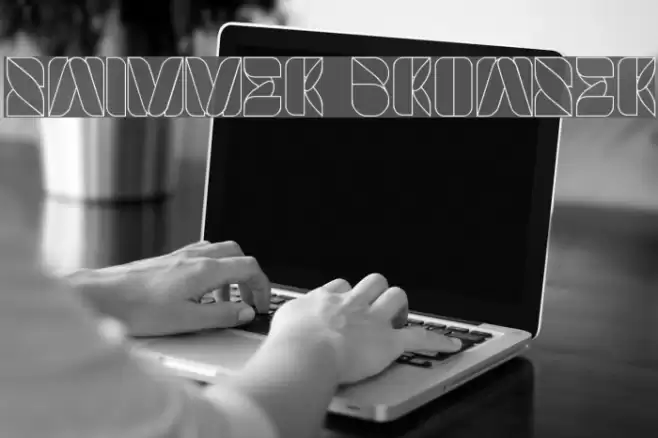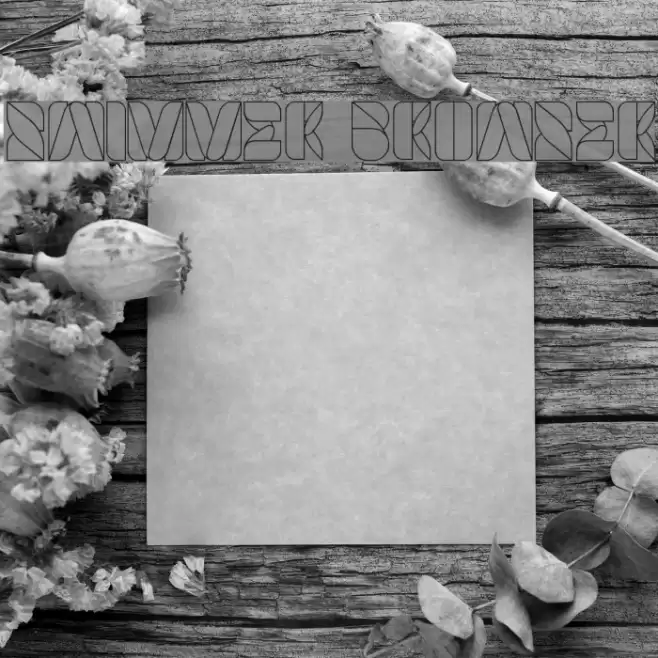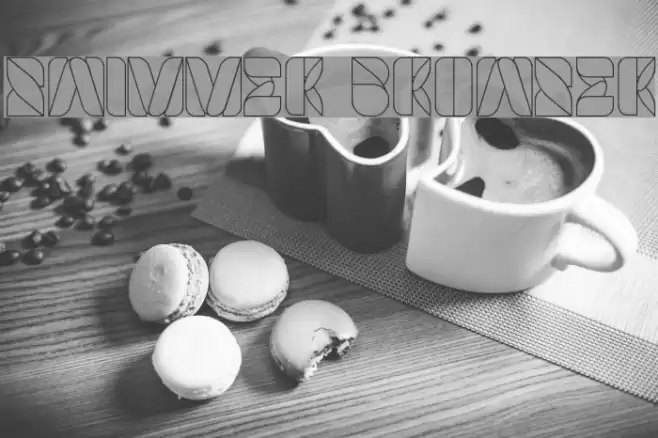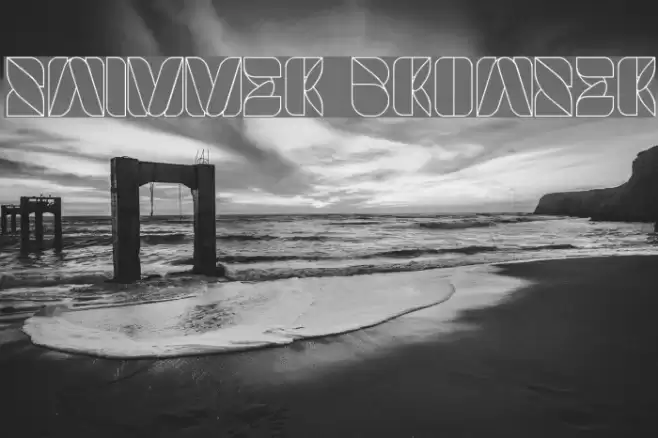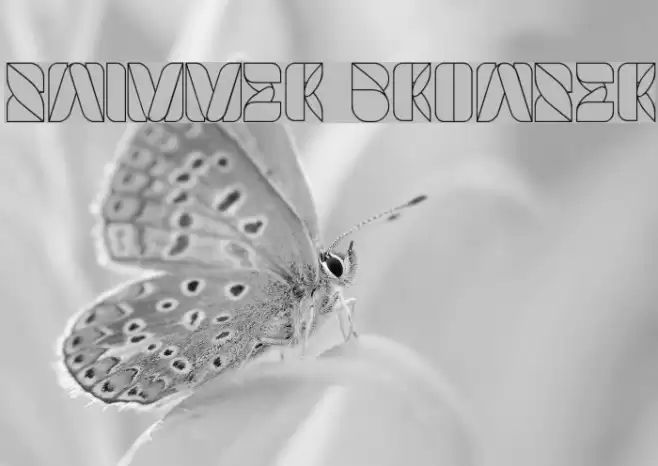
SWIMMER BROWSER Font
SWIMMER BROWSER Description
This font features a unique and modern design with a geometric and abstract style. The characters are composed of bold, angular shapes that create a sense of movement and energy. The uppercase letters are particularly striking, with their intricate patterns and bold lines. The font's design is reminiscent of modern art, with a focus on form and structure. It is highly decorative, making it suitable for eye-catching designs. The contrast between the thick and thin lines adds depth and dimension, enhancing its visual appeal.
A bold, geometric font with abstract, decorative elements from Uncategorized fonts.
- Proposed Projects: Ideal for modern art projects, branding, posters, and any design requiring a bold, artistic touch.
- Use Case: Logos, Posters, Headlines